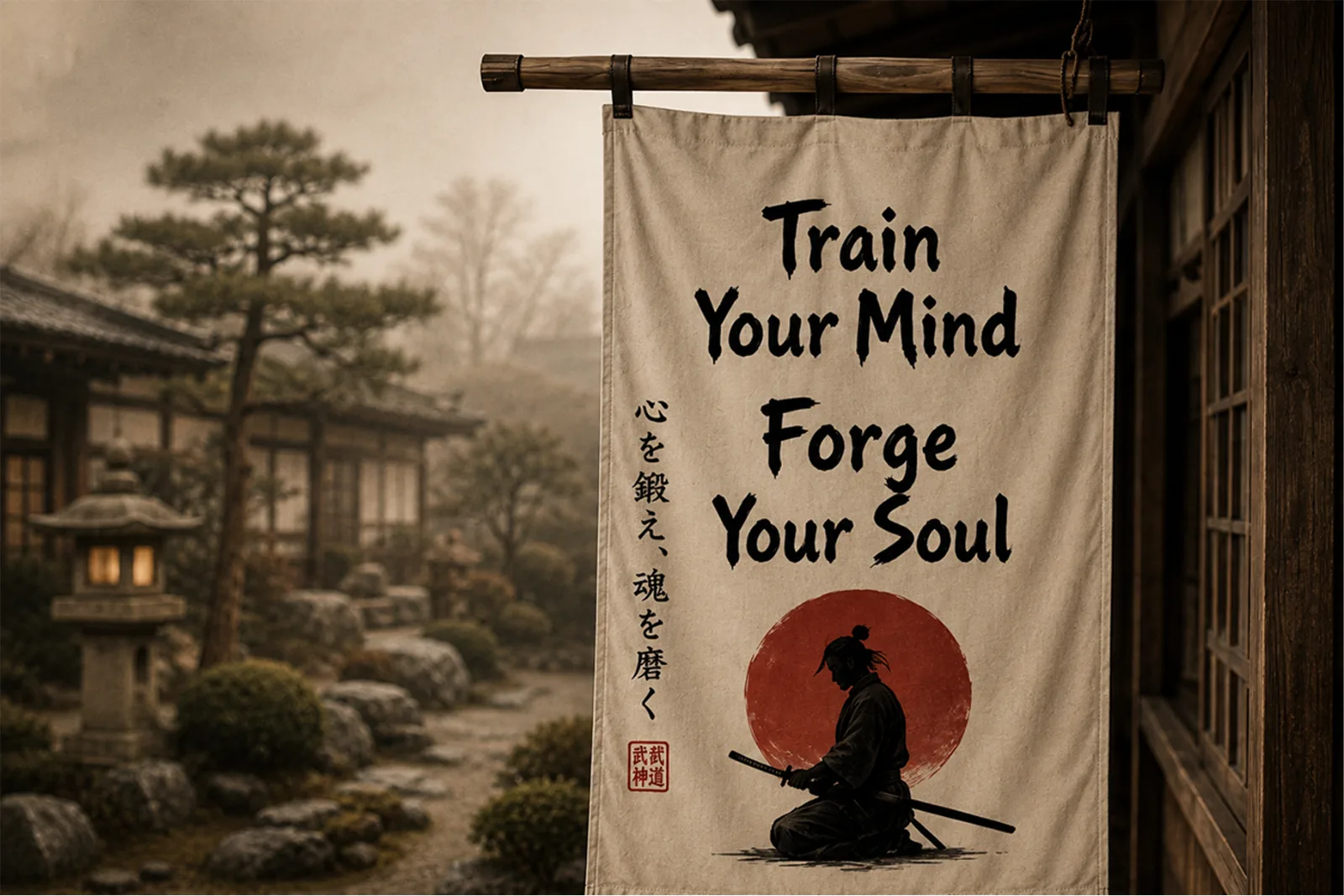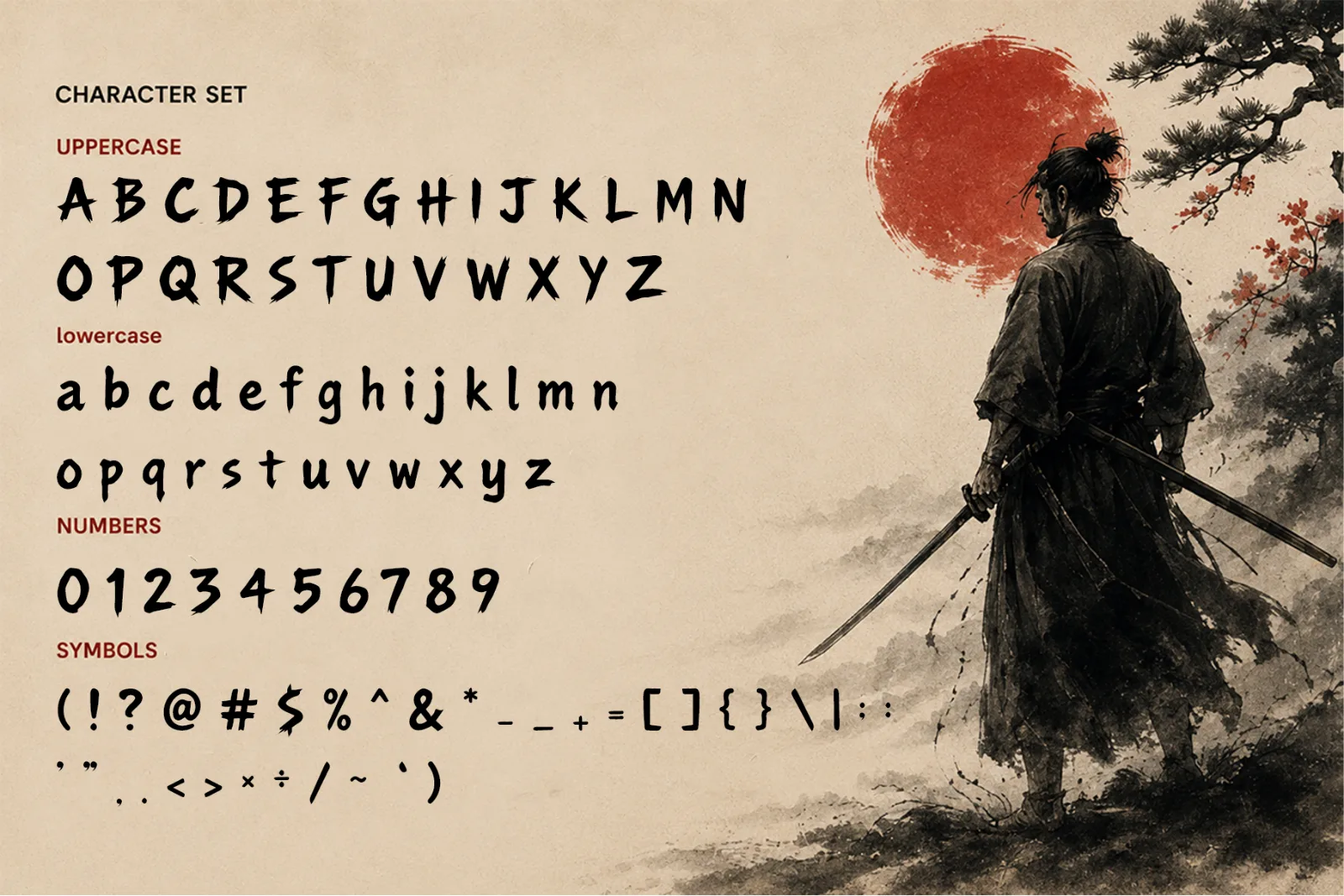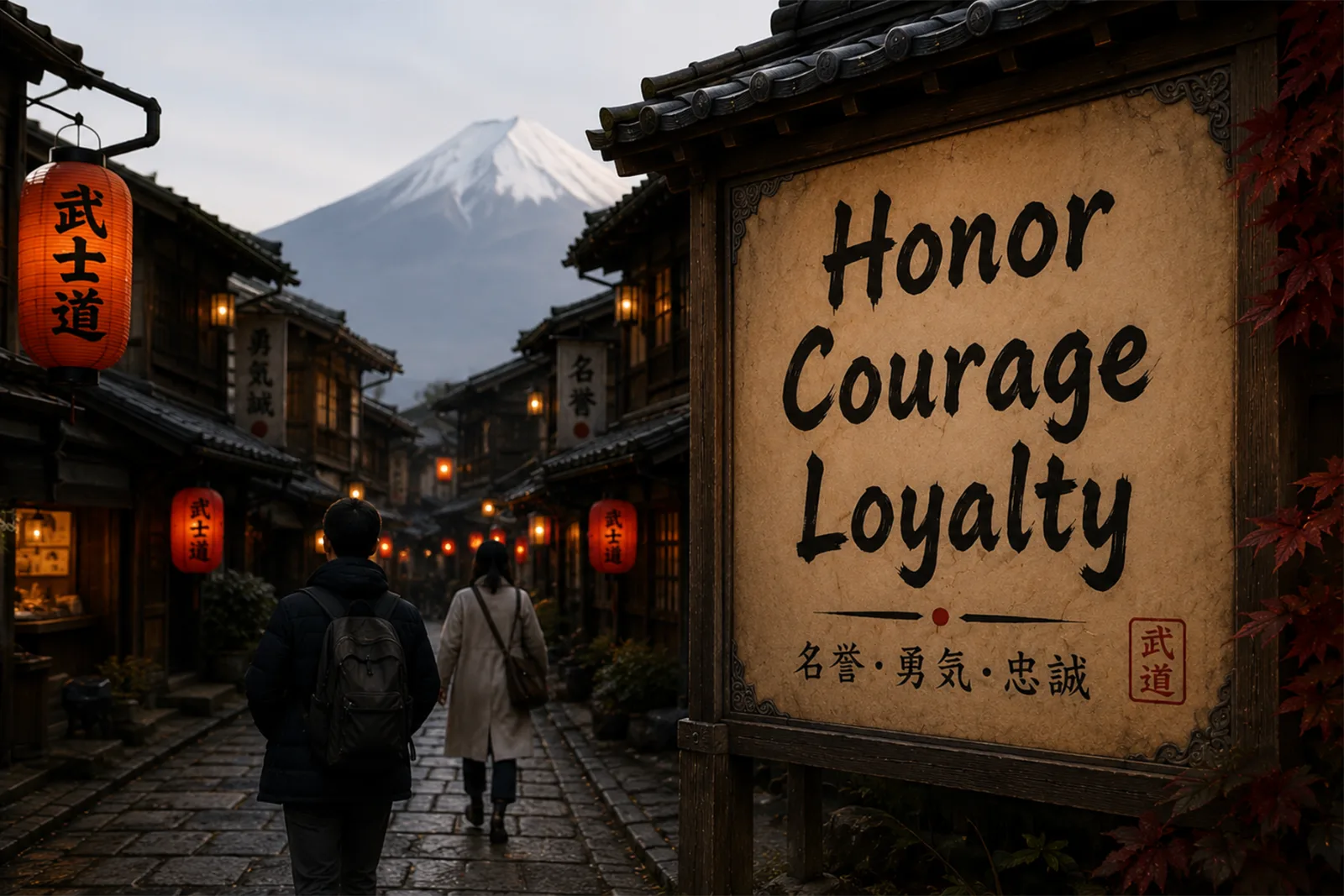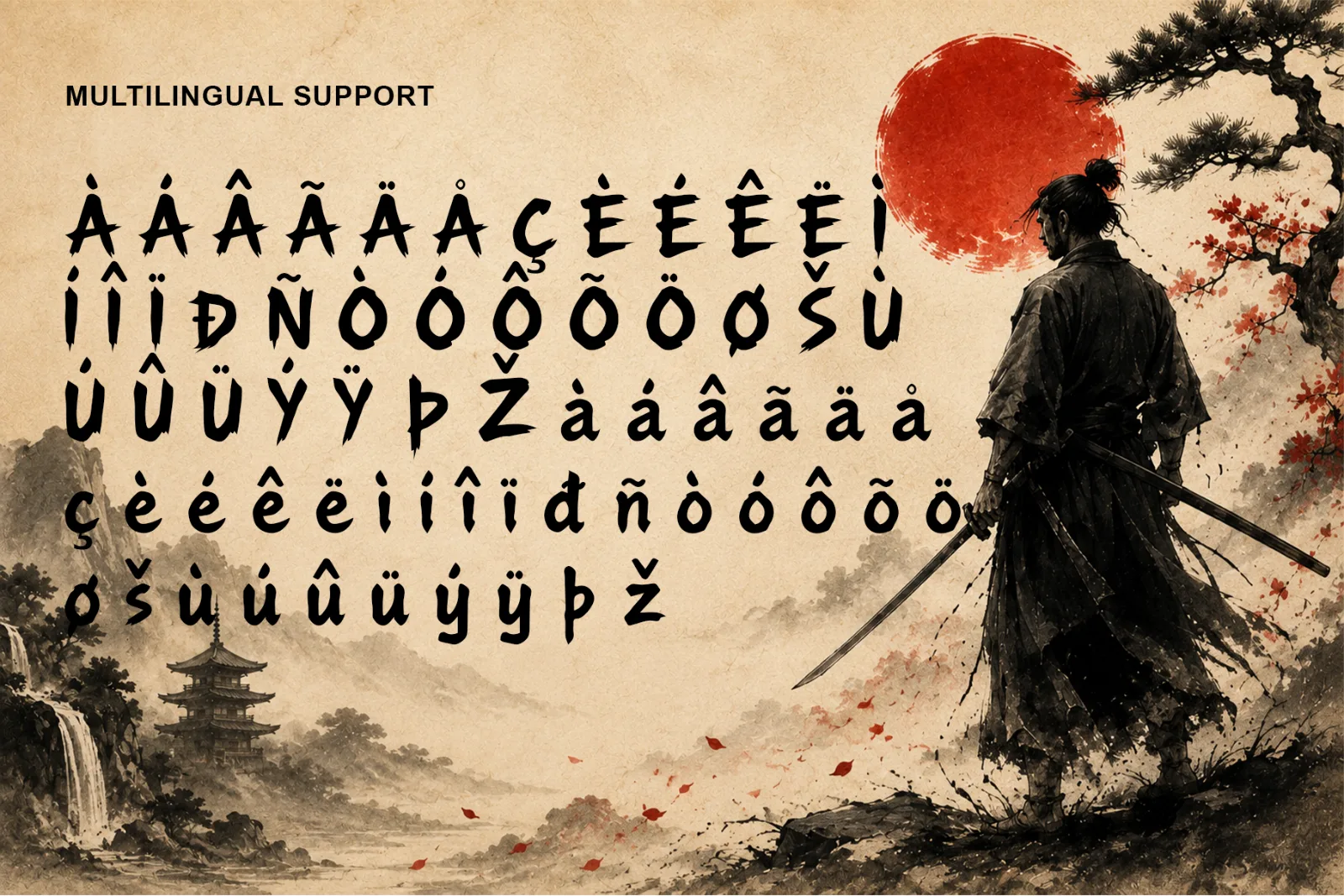
Bushido Spirit – Japanese Brush Display Font
Bushido Spirit is a bold Japanese-inspired brush display font created with expressive strokes, sharp edges, and a strong handcrafted personality. Inspired by samurai culture, traditional ink painting, and the spirit of the warrior, this font delivers dramatic visual impact while keeping a raw and artistic feel.
Its energetic brush shapes make Bushido Spirit ideal for projects that need strength, motion, and distinctive character, especially for posters, game titles, apparel, branding, packaging, and Asian-inspired creative designs.
Perfect for:
- Samurai & Warrior Designs
- Game Titles
- Posters & Headlines
- Martial Arts Branding
- Japanese-Inspired Graphics
- T-Shirts & Merchandise
- Album Covers
- Packaging
- Book Covers
- Restaurant Branding
- Tattoo-Inspired Artwork
- Social Media Graphics